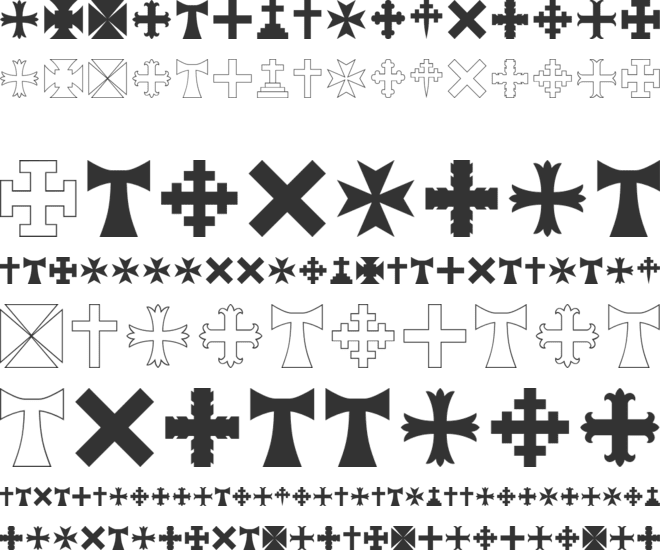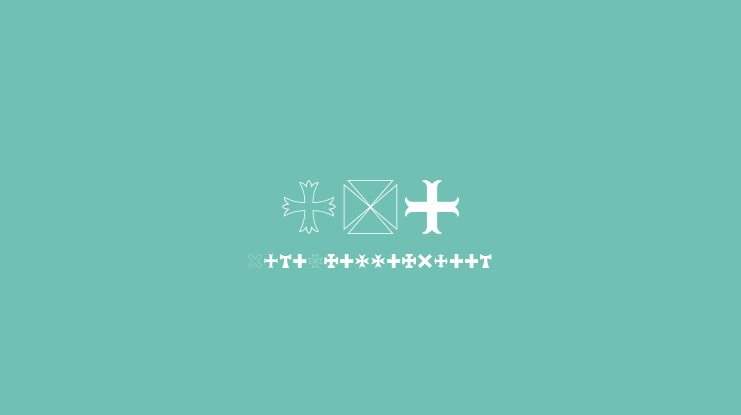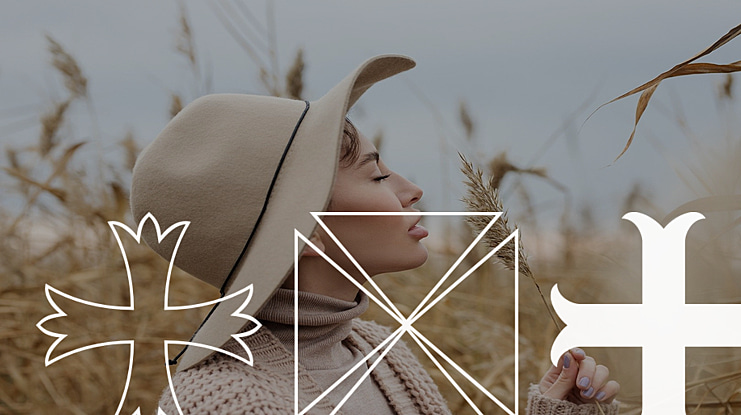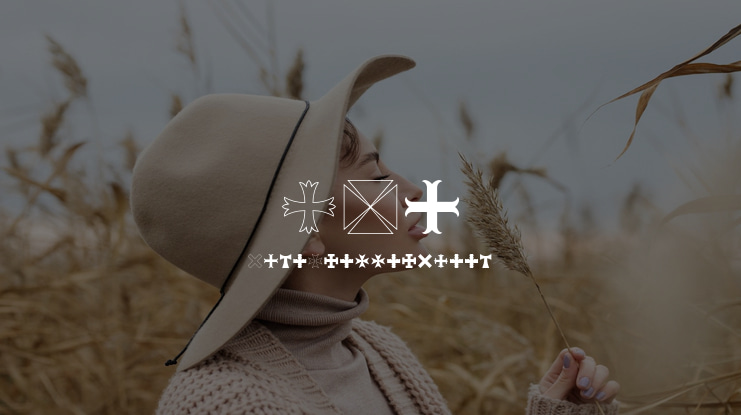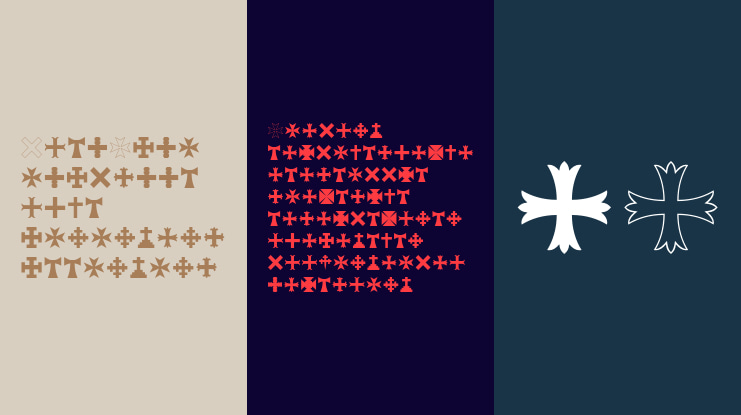
RTA Cross Font
The name of crosses in RTA Cross:
A/a - Patonce B/b - Patee Quadrate C/c - Patee or Formee D/d - Flory E/e - Tau F/f - Plain G/g - Calvary H/h - Passion I/i - Maltese Cross J/j - Botony K/k - Crosslet Fitchee L/l - St. Andrews Cross M/m - Raguly N/n - Crosslet O/o - Moline P/p - Potent
The crosses in RTA Cross:
A. Patonce B. Patee Quadrate C. Patee or Formee D. Flory E. Tau F. Plain G. Calvary H. Passion I. Maltese J. Botony K. Crosslet Fitchee L. St. Andrew's M. Raguly N. Crosslet O. Moline P. Potent
Uppercase is outlined while lowercase is solid.
RTA Cross by Have Fun with Fonts, 2013. Based on artwork created by Gary R. Smith of Round Table Arms (http://groups.yahoo.com/group/RoundTableArms) Images used with permission.